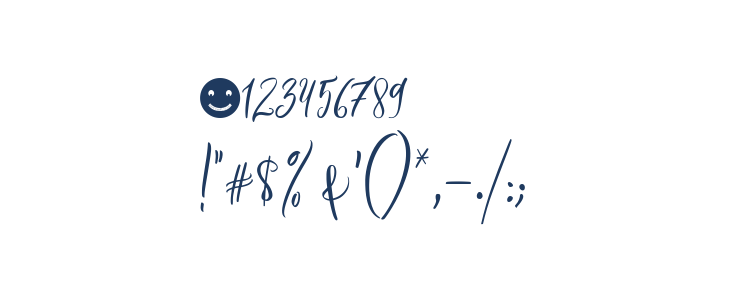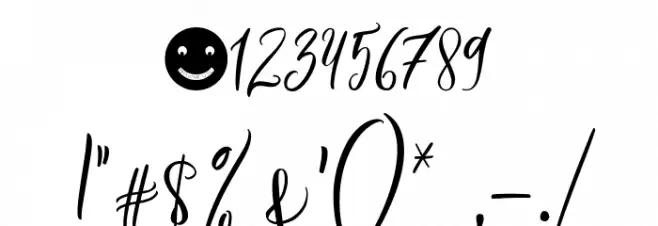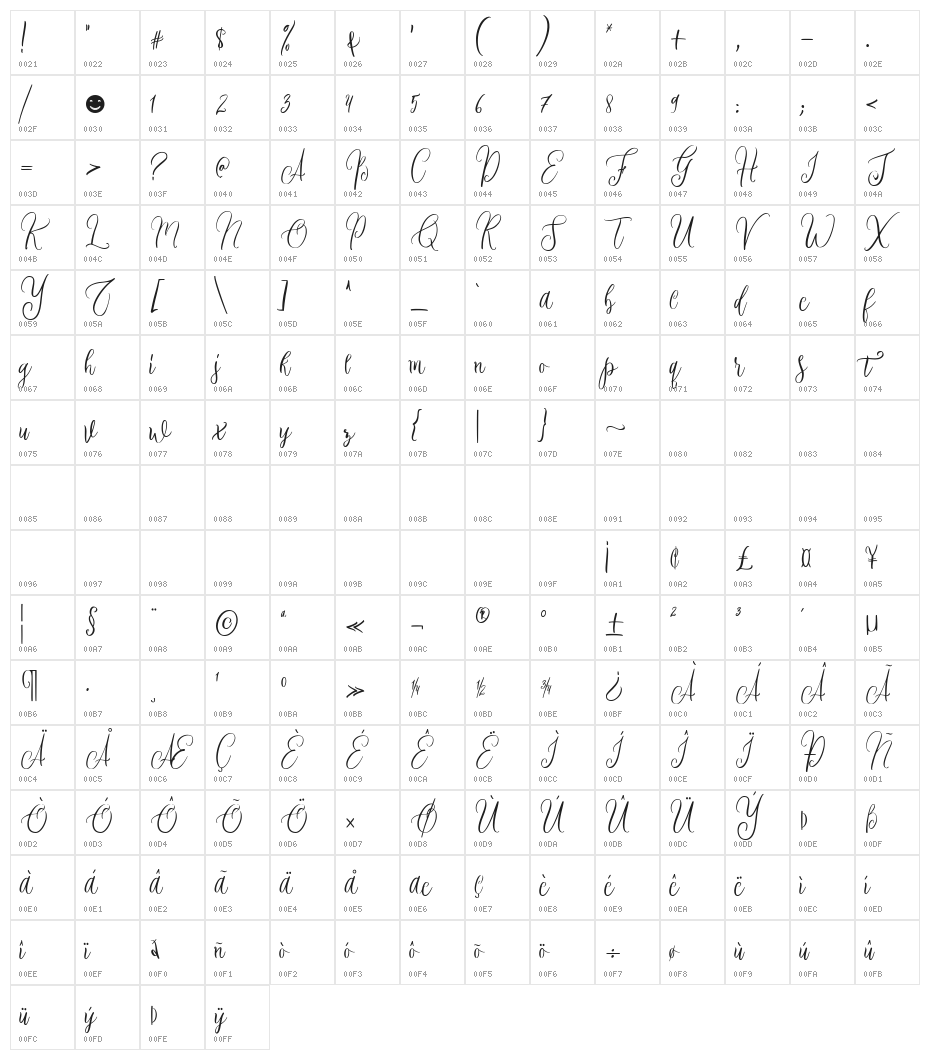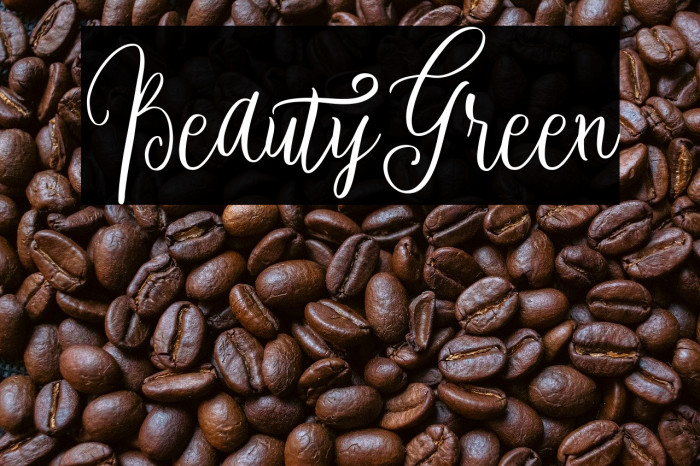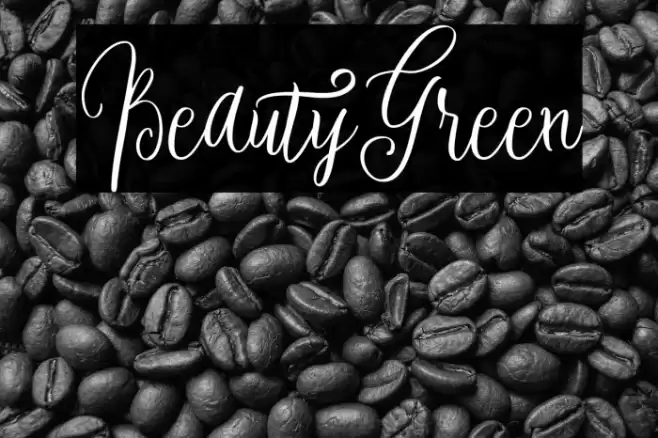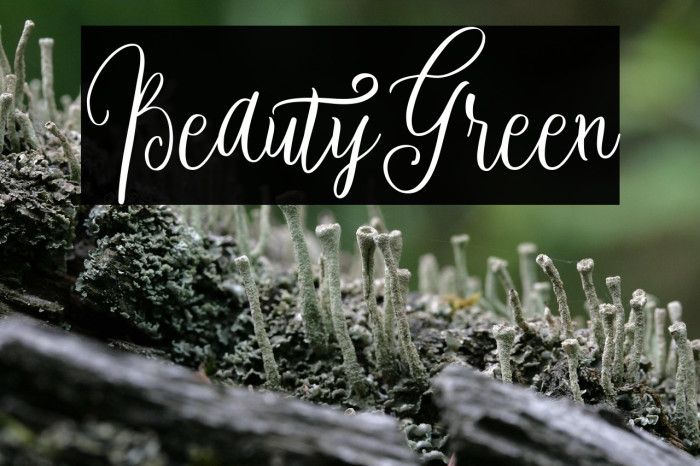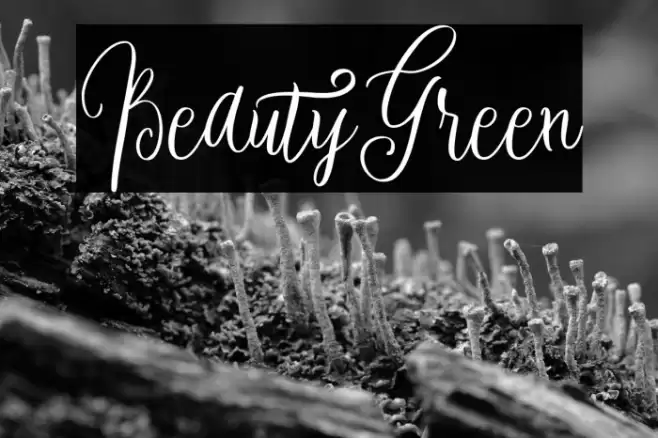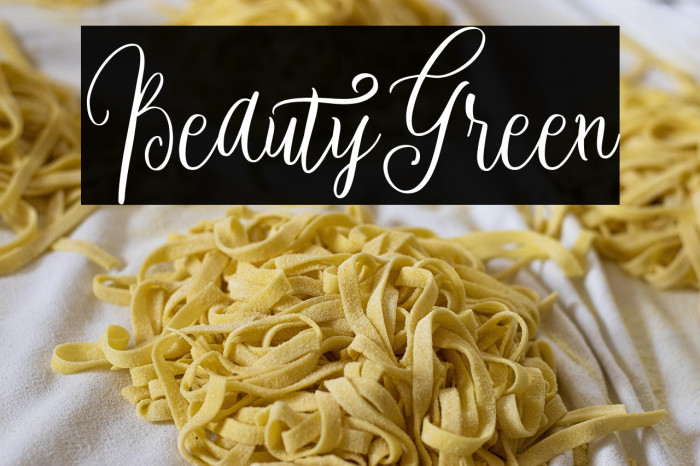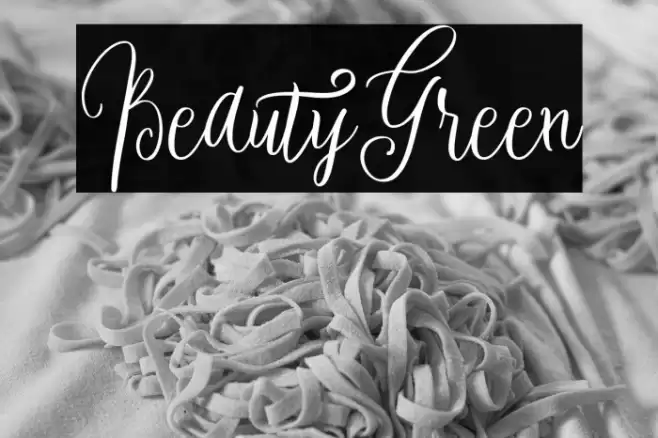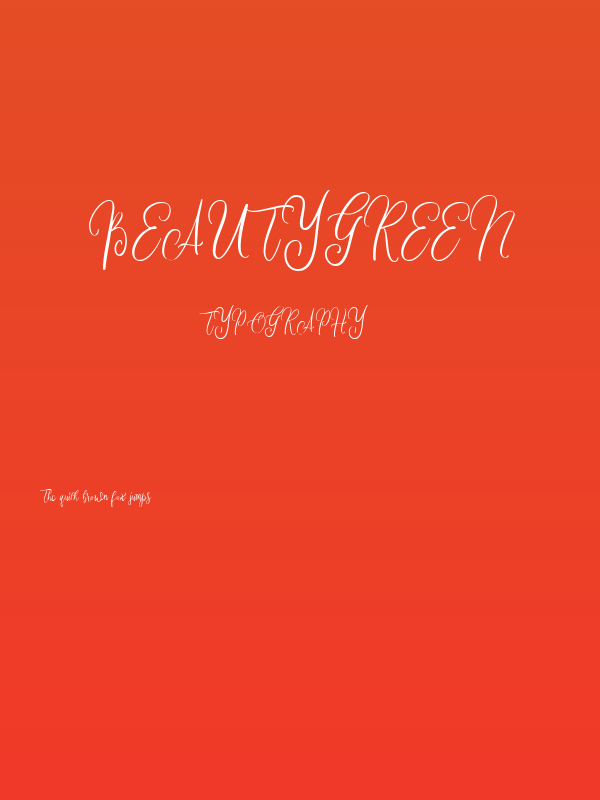
BeautyGreen Font
BeautyGreen Description
This font features an elegant and flowing script style, characterized by its smooth, cursive letterforms that convey a sense of sophistication and grace. The uppercase letters are tall and slender, with delicate loops and swashes that add a touch of flair. The lowercase letters maintain a consistent flow, with rounded forms and subtle connections between characters. The numerals are styled to match the script's fluidity, offering a cohesive look across all characters. Special characters are thoughtfully designed, integrating seamlessly with the overall aesthetic. This font's artistic nature makes it ideal for creative and expressive projects.
| Proposed Projects | Ideal for wedding invitations, greeting cards, branding, and elegant packaging designs. |